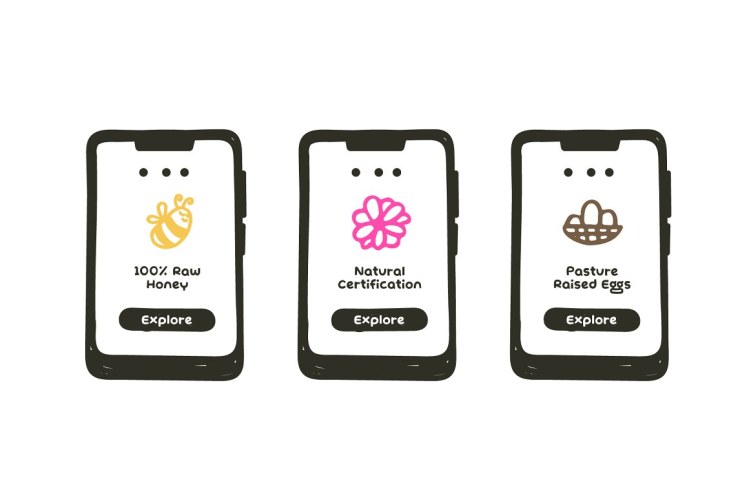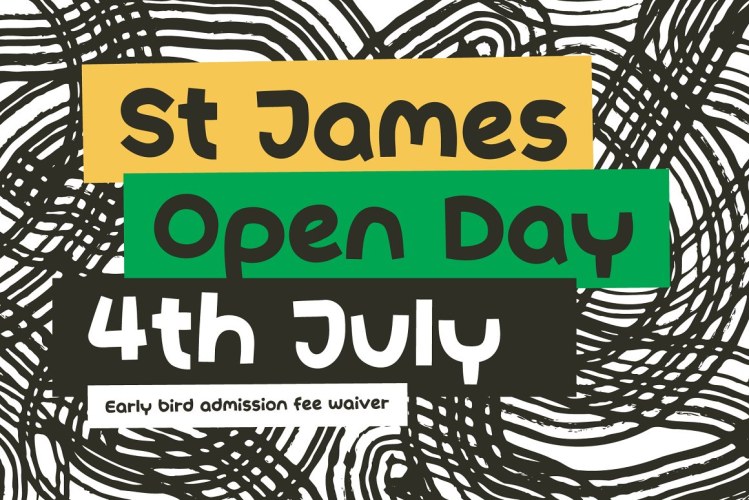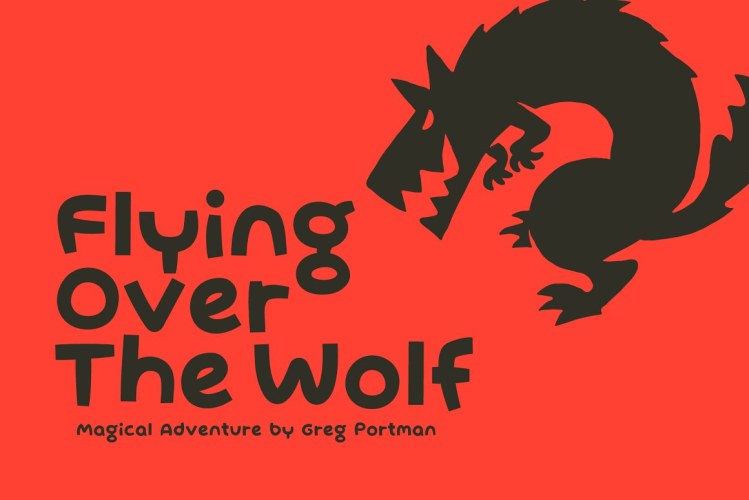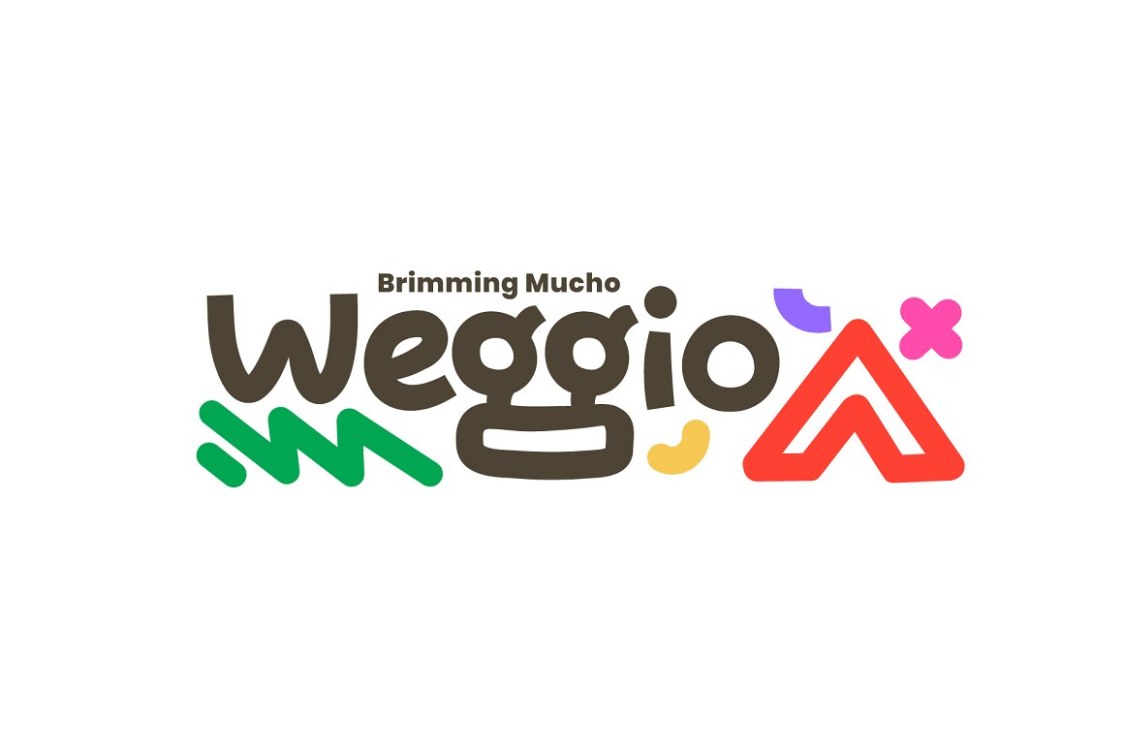
Weggio Font
Weggio is a brimming mucho handwritten typeface apt for headline, editorial, branding, packaging, printed materials and typographic applications. 200+ glyphs including punctuation and numerical.
Where Weggio Font works best
Personal branding & signatures
Weggio Font adds an authentic, human signature to portfolios, coaching brands and creator logos.
Cards, journals & planners
Ideal for greeting cards, printable planners and scrapbook layouts.
Food & café menus
Handwritten styles like Weggio Font make menus and chalkboard-style signage feel friendly.